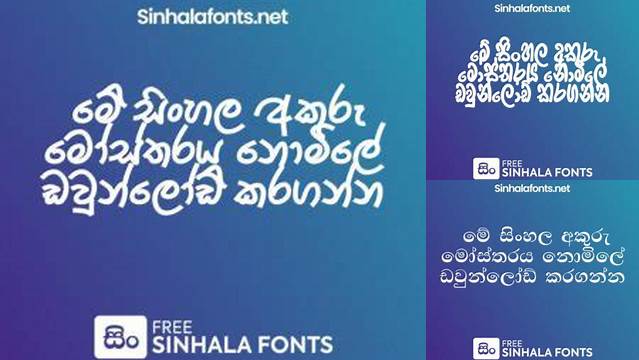
1. Understanding Sinhala Fonts
Before we jump into the download part, let's quickly chat about what makes Sinhala fonts unique. Sinhala is a beautiful script used in Sri Lanka, and its fonts have their own distinct characteristics. When you’re looking for free Sinhala fonts, it’s essential to understand the different styles and how they can enhance your projects. Think about the tone you want to convey – is it formal, playful, or traditional? This will help you pick the perfect font.
Free Sinhala fonts come in various styles, from elegant and script-like to bold and modern. Each style can evoke different emotions and suit different purposes. For example, a formal document might benefit from a clean, serif font, while a poster could use a more decorative, sans-serif option. Understanding these nuances will help you make informed choices.
Consider the readability of the font as well. While a fancy font might look great, it’s crucial that your text is easy to read, especially for longer pieces of content. Always test out the font in different sizes and contexts to ensure it works well for your needs. Also, ensure that the Sinhala fonts you choose are compatible with your software and operating system to avoid any technical hiccups.
2.3. DaFont
DaFont is a classic in the free font world. It has a massive collection of fonts, including a good selection of Sinhala fonts. The fonts are categorized by style, making it easy to find what you’re looking for. Keep in mind that the licensing can vary on DaFont, so always double-check before using a font in a commercial project. It’s a fantastic place to find unique and creative fonts that might not be available elsewhere.
DaFont is a treasure trove for anyone seeking free Sinhala fonts with character. The site’s vast library means you’ll find everything from quirky handwritten styles to elegant display fonts. However, it’s crucial to pay attention to the licensing information provided for each font. While many fonts are free for personal use, commercial use often requires permission from the font’s creator or a licensing fee. The site’s interface is simple and straightforward, making it easy to browse and preview fonts. You can also see how a font looks with your own text, which is a great way to ensure it fits your project’s needs. With its diverse selection and user-friendly design, DaFont is a go-to resource for font enthusiasts.